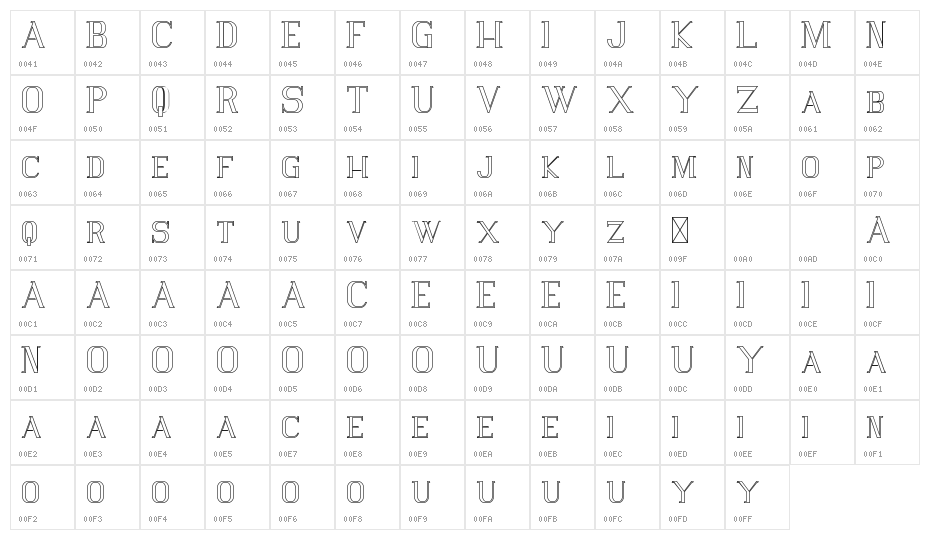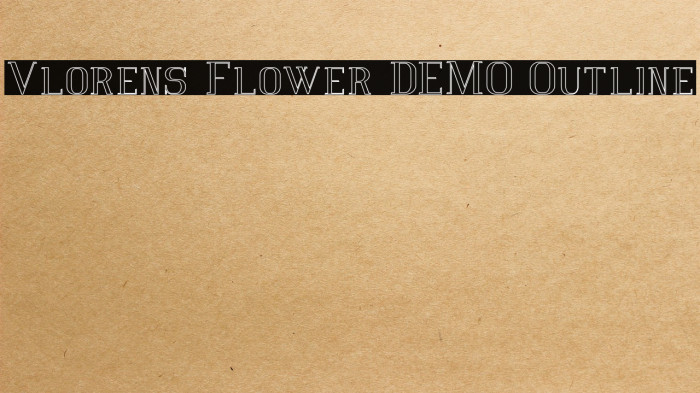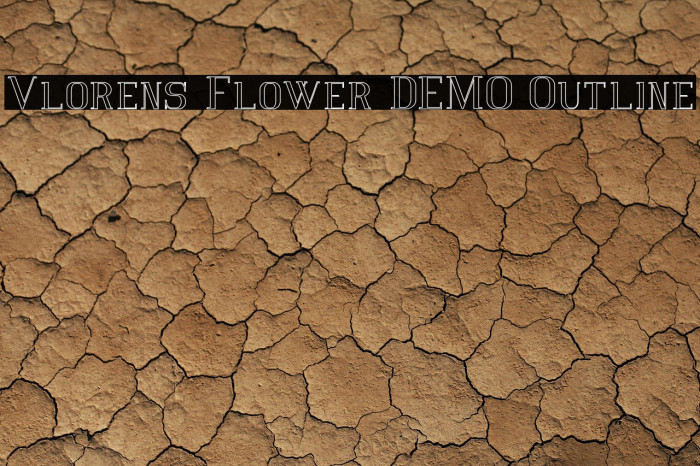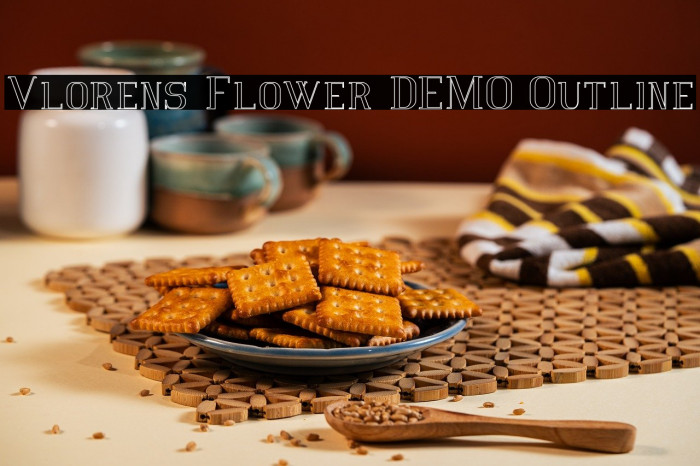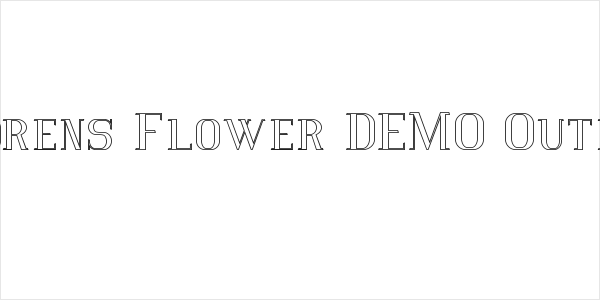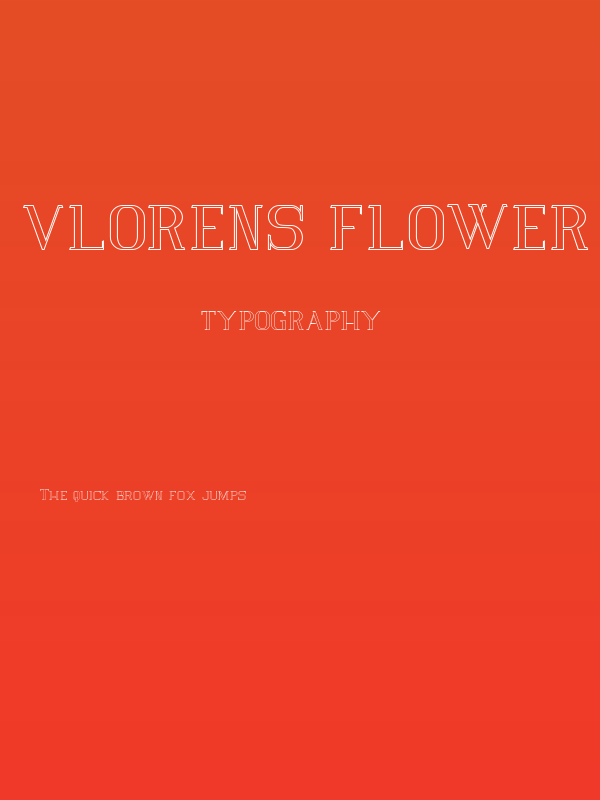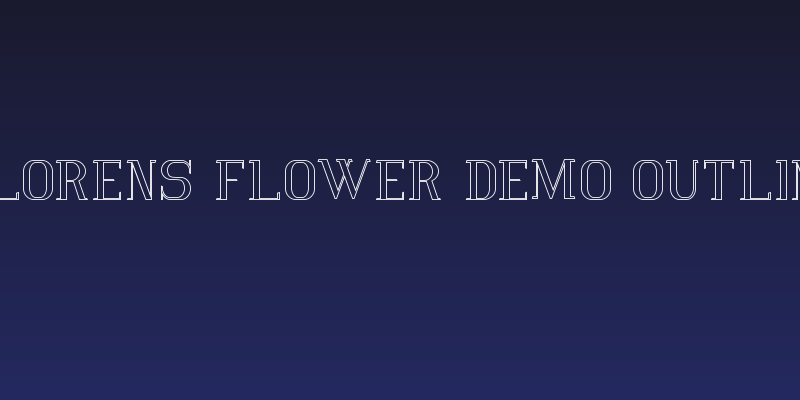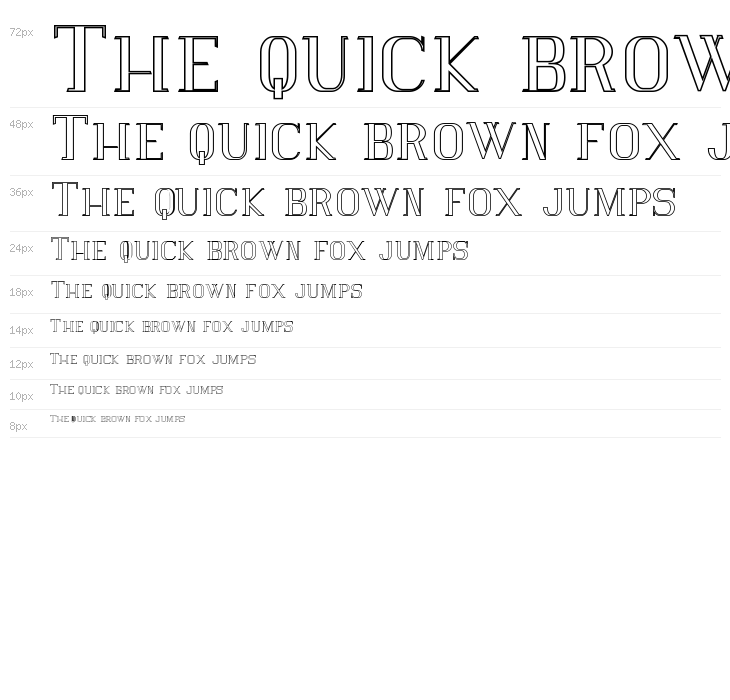
Vlorens Flower DEMO Outline Font
Vlorens Flower DEMO Outline Description
This font features a unique outline style that combines a modern geometric structure with a decorative flair. Each character is defined by a bold, linear outline that creates a hollow effect, giving the font a distinctive and eye-catching appearance. The uppercase letters are uniform in height and width, maintaining a consistent and balanced look across the alphabet. The font's design is clean and precise, with sharp angles and straight lines that contribute to its contemporary aesthetic. The spacing between characters is normal, ensuring readability while allowing the outline style to stand out. This font is ideal for projects that require a modern yet artistic touch, such as branding, posters, and headlines.